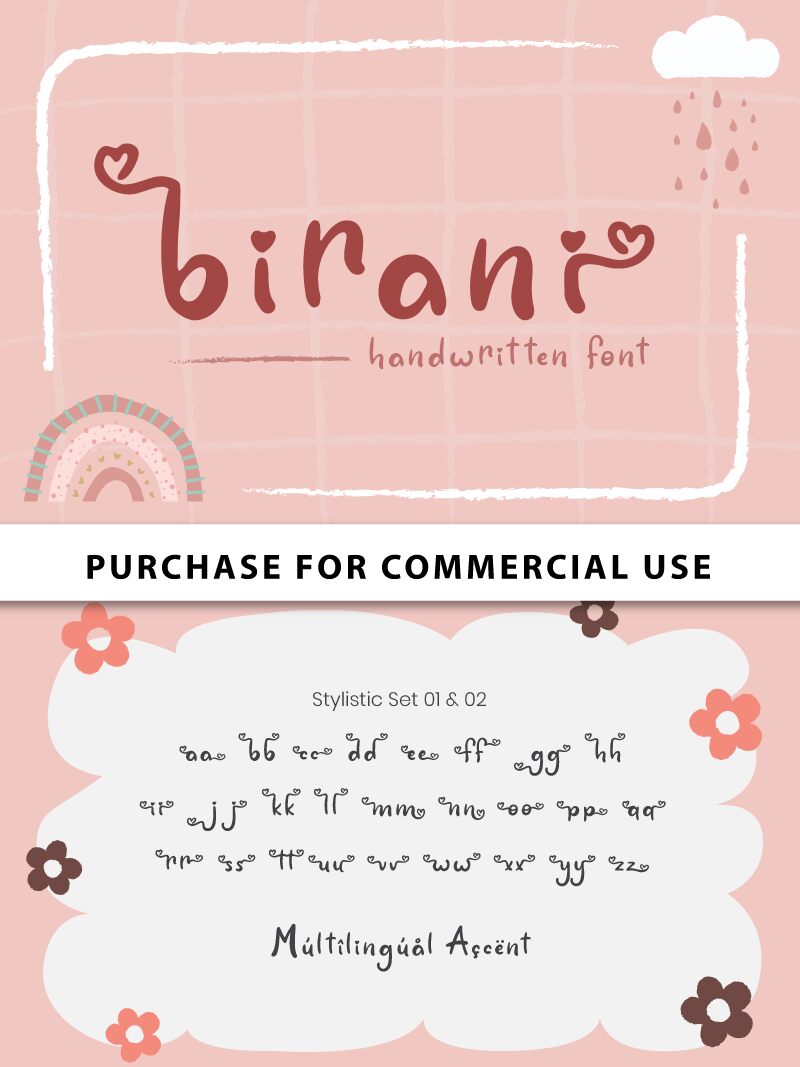
Birani Regular
Birani font is a casual, friendly handwritten font made by Attype Studio. The approachable letters look as if they are written in relaxed hand and give any project a pleasant, lively look. Integrated seamlessly into brand imagery and things like logo design, this quirky display typeface lets some personality show in an elegant manner.
The free font captures a pleasant contemporary look suitable for projects having to do with creative writers, poets, lifestyle influencers, art-related businesses, and more. It would be perfect for personal branding including business cards; it can also label products and interiors or be used on websites or promotional materials of coffee shops, restaurants, and hotels as well as publications of magazines.